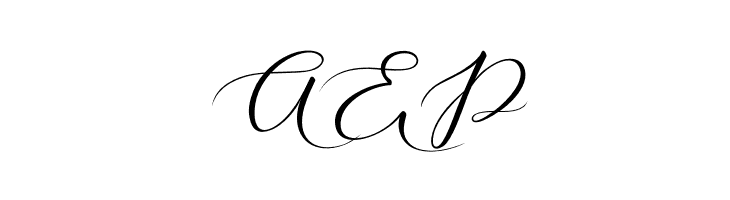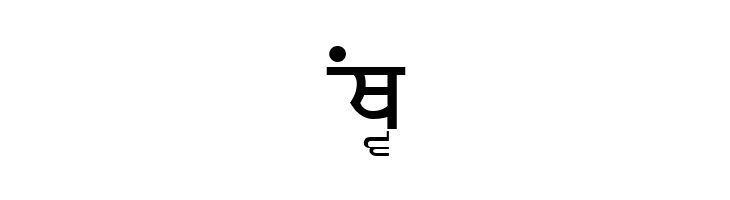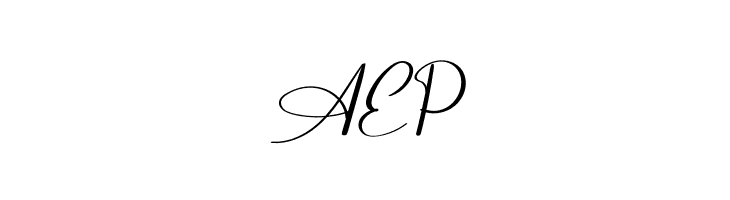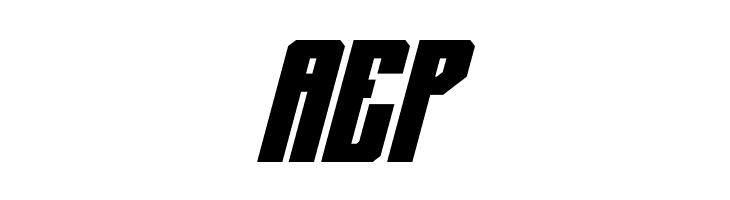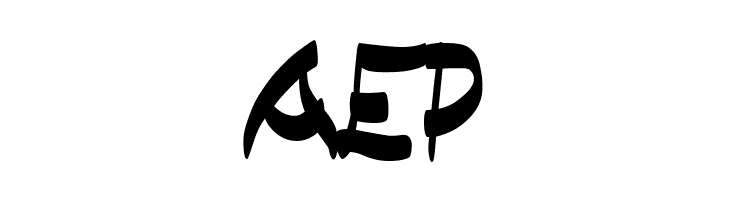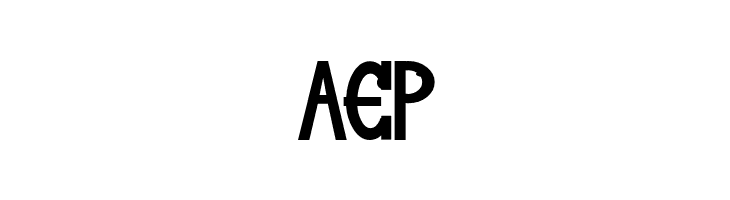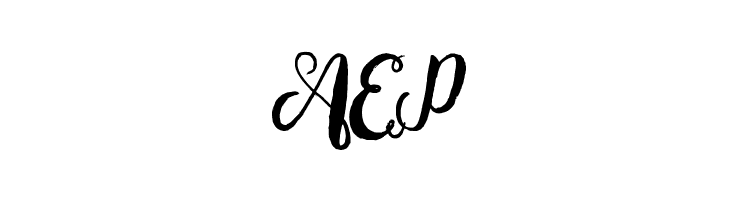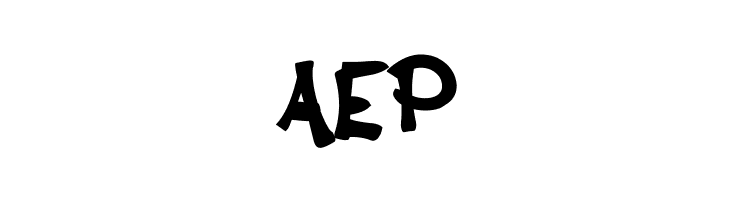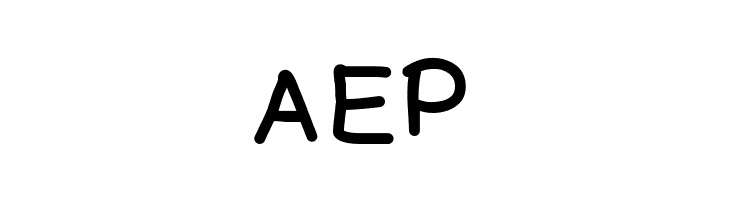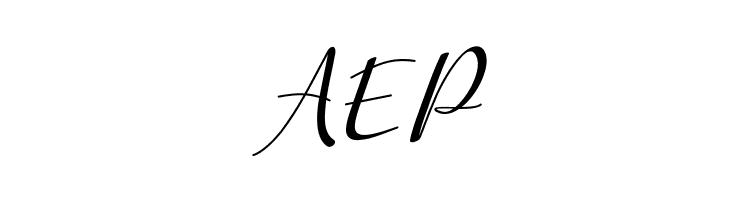
An elegant, flowing script font with ornate uppercase and connected lowercase letters.
An elegant script font with flowing curves and decorative swirls.
An ornate, swashed font with elaborate decorative elements.
A bold, handwritten font with dynamic strokes and playful contrast.
A graceful and elegant script font with flowing, interconnected letters.
An elegant, flowing script font with smooth, cursive strokes.
A bold, modern font with geometric cuts and high contrast.
An elegant cursive font with ornate uppercase and smooth lowercase letters.
An elegant script font with flowing, intricate loops and high contrast strokes.
A whimsical, hand-drawn font with tall, narrow characters and playful details.
A bold, slanted font with a dynamic and modern style.
A bold, playful handwritten font with a dynamic and energetic feel.
A bold, playful script font with a hand-drawn, energetic style.
A bold, 3D geometric font with shadowed outlines for a striking effect.
A playful, hand-drawn font with rounded characters and a whimsical style.
A modern, geometric font with clean lines and uniform proportions.
A playful and dynamic script font with fluid, connected letterforms.
A graceful and elegant script font with flowing cursive letterforms.
A playful and whimsical script font with decorative loops and flourishes.
A dynamic and expressive handwritten font with fluid strokes and whimsical flourishes.
A playful, hand-drawn font featuring cartoon animal faces and simple shapes.
A playful, hand-drawn font with characters resembling quirky robots.
A bold, pixelated font with a retro, digital aesthetic.
A bold, geometric font with a digital, pixelated style.